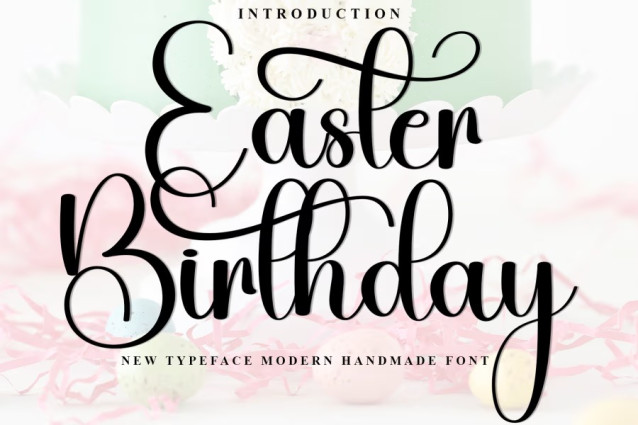
Easter Birthday Font
Easter Birthday Font is a stunning script handwritten font that exudes elegance and charm, perfect for a variety of special occasions and creative projects. Its fluid strokes and graceful curves make it an ideal choice for wedding invitations, birthday cards, Easter greetings, and other festive celebrations. Whether you’re designing for Thanksgiving, Christmas, or seasonal events like summer, spring, or autumn, Easter Birthday adds a personal and heartfelt touch to every project.